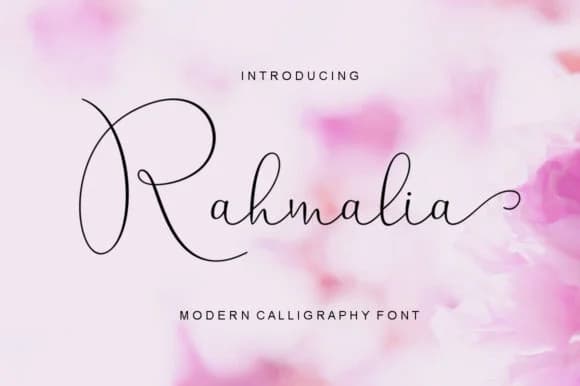
Picture a wedding invitation lying flat on white linen: Rahmalia Script Font by Letterware is exactly what makes that moment feel special. Designed as a contemporary calligraphy typeface, it deliberately disrupts the baseline, giving letterforms that hand-drawn quality where imperfection becomes the point. That irregular, slightly off-kilter rhythm works beautifully for luxury cosmetics packaging, custom Etsy product labels, and handwritten-style greeting cards where understated elegance matters.
Beyond weddings, this script works beautifully across smaller label projects. It suits boutique candle packaging and artisan skincare branding where personality can't take a back seat to formality, yet keeps enough restraint for DIY craft signs that need more than just novelty. The script maintains readability even at larger sizes, which matters when a design needs to work from across the room.
What makes Rahmalia distinct is how that uneven baseline generates rhythm without sacrificing clarity. The effect is less geometric, more organic, creating movement in letterforms that might otherwise feel static. For projects involving stationery design, product labeling for small businesses, or any work requiring both craft and sophistication, this typeface delivers exactly that balance. Find Rahmalia Script Font on Creative Fabrica and put it straight to work.
Rahmalia Script Font is a script font that shines as a display or heading face. Pair it with a clean sans-serif or serif font for body text β the contrast creates a clear hierarchy while the two styles stay balanced and easy to read.